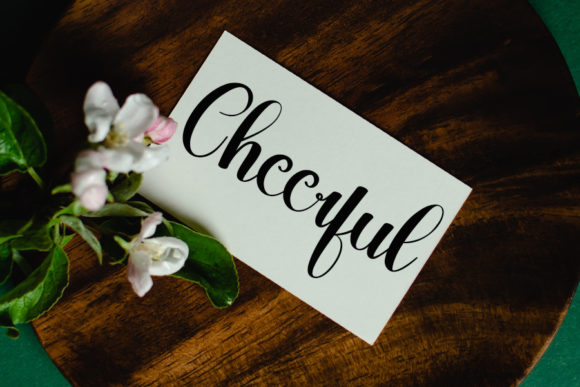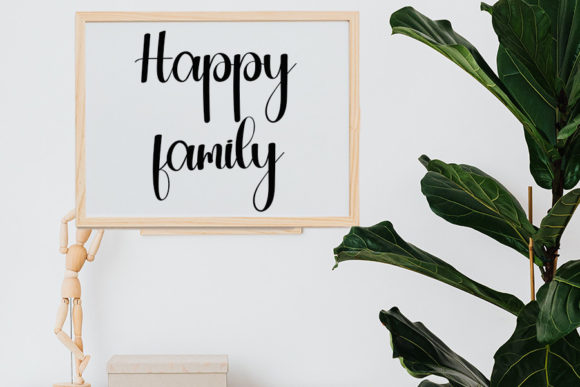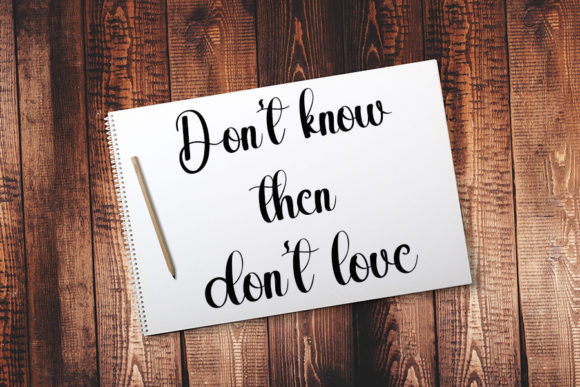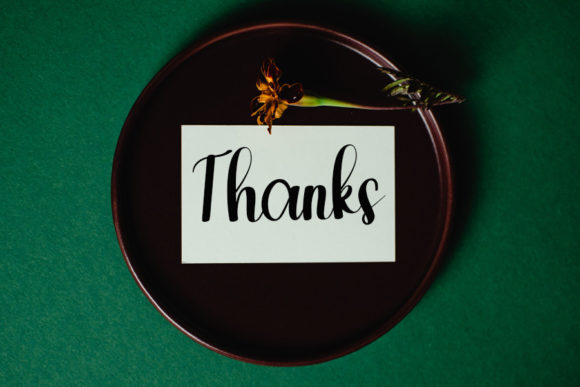
The Quest for the Perfect Font: Discovering Austing
I still remember the design project that led me to Austing Font. I was working on a branding project for a luxury boutique, and I was struggling to find the perfect font that exuded elegance and sophistication. The client was particular about the font style, and I had to ensure that it was both stylish and timeless. After hours of searching, I stumbled upon Austing Font, and it was love at first sight! ✨
Austing Font: A Timeless Classic with a Contemporary Twist
Austing Font is a stylish handwritten font that boasts a contemporary atmosphere and impeccable form. Inspired by timeless classic calligraphy, Austing Font is perfect for designers, crafters, and creative hobbyists looking for a font that can elevate their designs. Whether you’re working on a luxury brand, a wedding invitation, or a personal project, Austing Font is sure to make a statement.
Honest Review: What I Love and What I Don’t
- ✅ Elegant and sophisticated design
- ✅ Versatile and adaptable to various design contexts
- ✅ Beautifully crafted with attention to detail
- ⚠️ Limited availability of certain glyphs and special characters
- ⚠️ May not be suitable for very large or very small font sizes
The Designer Inspiration Behind Austing Font
Austing Font was inspired by the timeless classic calligraphy of the past. The designer, who wishes to remain anonymous, drew inspiration from the elegant and sophisticated scripts of the 18th and 19th centuries. With a passion for typography and a keen eye for detail, the designer crafted Austing Font to be a modern take on classic calligraphy.
Q: What is Austing Font?
Austing Font is a stylish handwritten font with a contemporary atmosphere and impeccable form, inspired by timeless classic calligraphy.
Q: What design contexts is Austing Font suitable for?
Austing Font is versatile and adaptable to various design contexts, including luxury branding, wedding invitations, and personal projects.
Q: Is Austing Font easy to read?
Yes, Austing Font is highly legible, even at small sizes. However, it’s recommended to use a larger font size for optimal readability.